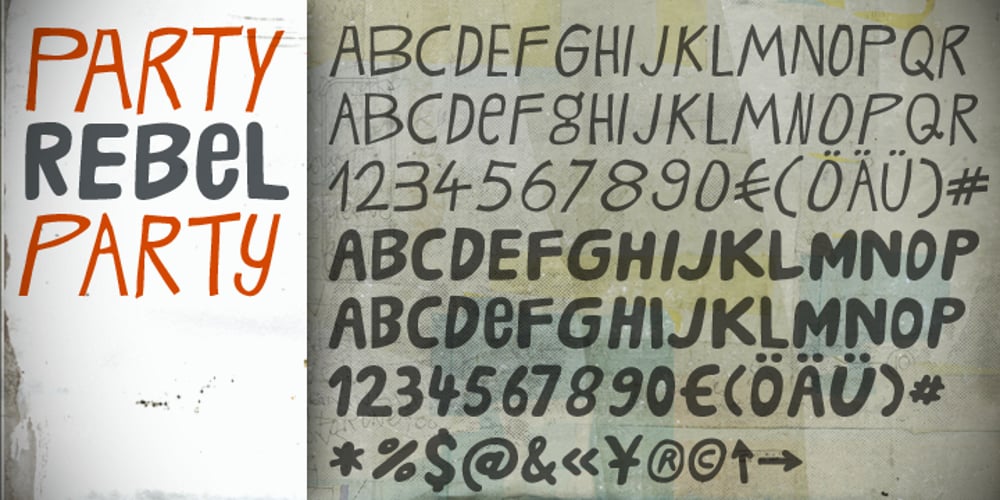
CA Rebel Party Rebel Font Family was designed by Thomas Schostok and published by Cape Arcona Type Foundry. CA Rebel Party Rebel contains 2 styles and family package options. After throwing a television out of the window of the 4th floor of a hotel room somewhere near Austin/Texas, Thomas Schostok painted “driven by hate and anger” in this rebellious two style typeface. This typeface shall remind us every day of the “indifference of the mainstream” of which we take a shower every day after wake-up. CA Party Rebel, a thin style, ideal for telling everyone, that you are a rebel at any party and CA Rebel Party, the fat style, telling that a party has to be rebellious.